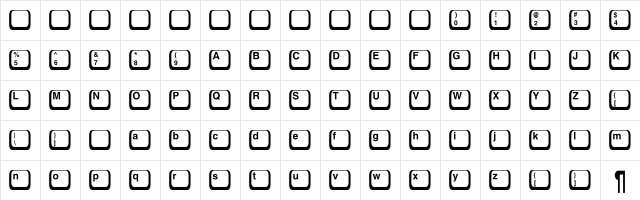
Keyboard1C Regular
Design Context for Keyboard1C Typeface
Keyboard1C offers clean, dependable letterforms without strong stylistic allegiance, making it a practical choice for designers who need flexibility.
Pro Tip: Use Keyboard1C in both headline and body roles to test its range before committing to a single application.